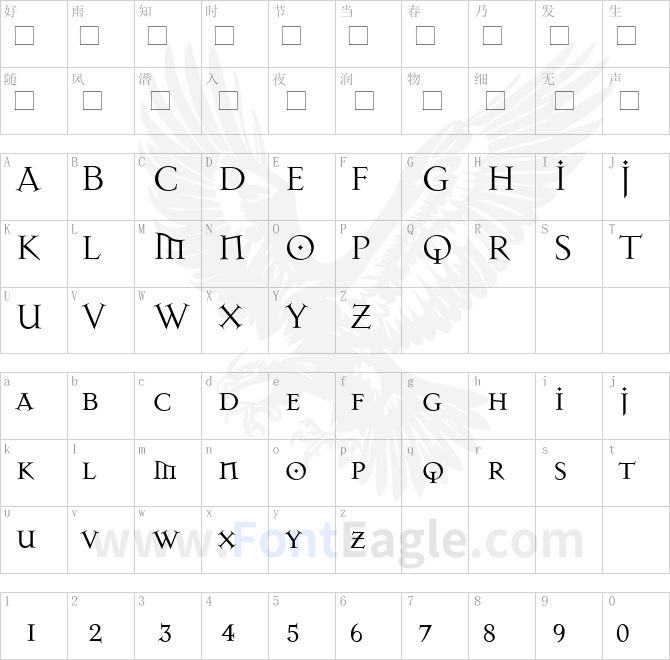
- Font name:MasonAlternate
- Font Subfamily ID:DTP-MasonAlternate
- Font Full Name:MasonAlternate
- Postscript:MasonAlternate
- Font Copyright:Copyright (C) 1993, Emigre Graphics; Designed by Jonathan Barnbrook